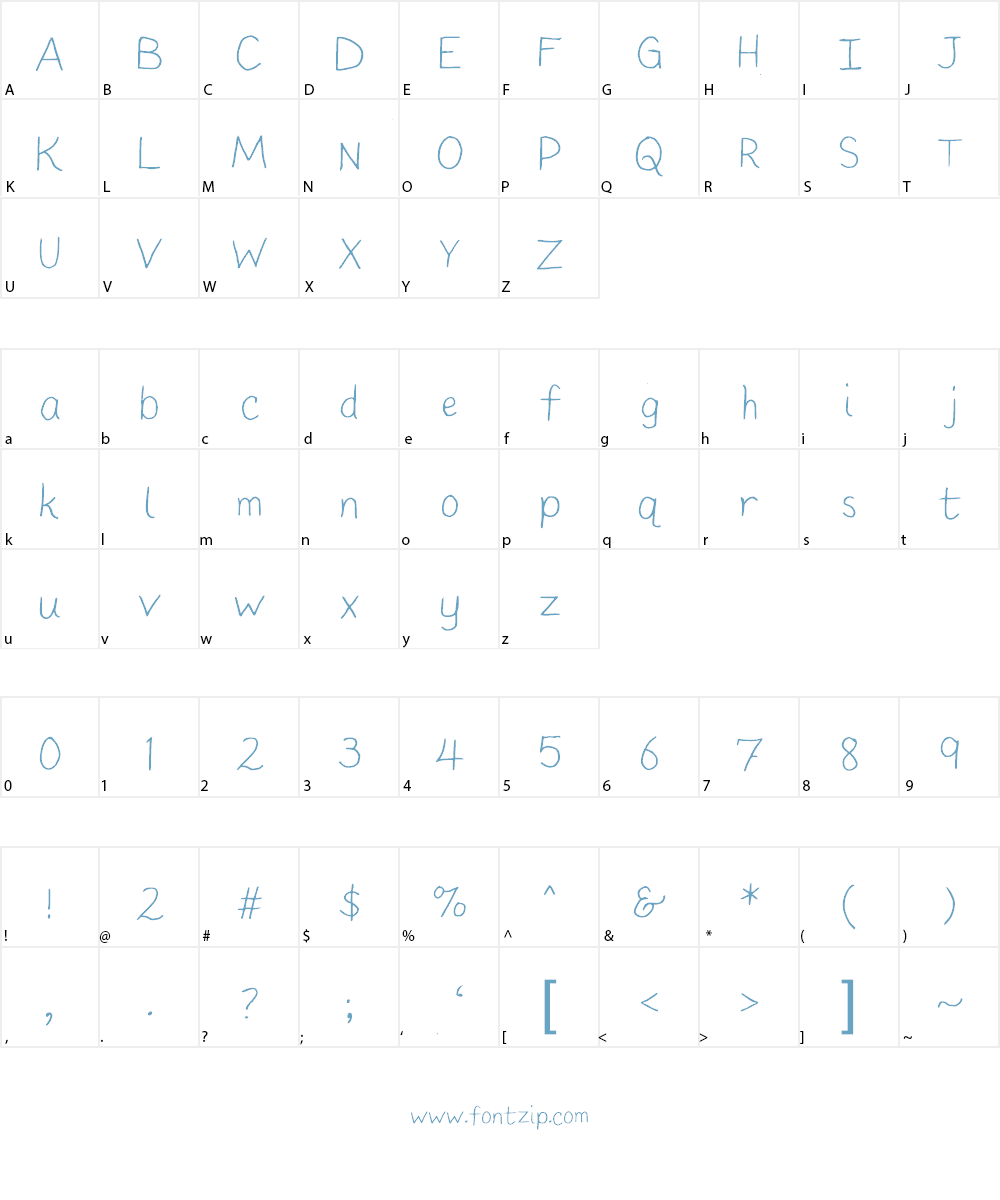
Pupil Light was the first go at a classroom font by SWMCA Catalogs, going back to 1989. It is based off the Slimline Regular font (later to be renamed Basic), SWMCA's first font. For a "cleaner" presentation SWMCA recommends using the bold selection in your computer programs. This is due to the fact that the original drawings from 1989 were used and then digitized. A substantial amount of work was done on this font before Sept. 5 2014 when SWMCA became unionized, therefore it is presented as a non-union work. This will also be the last non-union font put out by SWMCA. There are more fonts coming as part of the Pupil font family see note below. The Pupil fonts are part of the SWMCA Schoolhouse line even-though "schoolhouse" is not in the name.